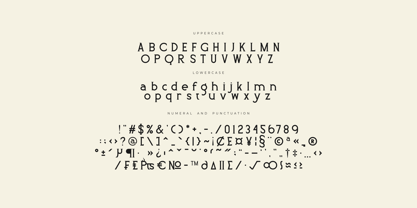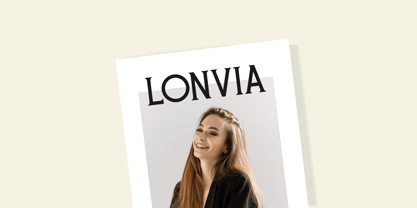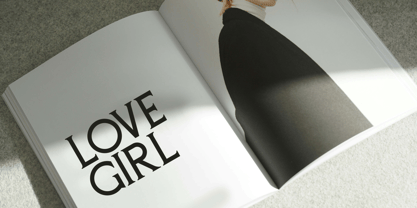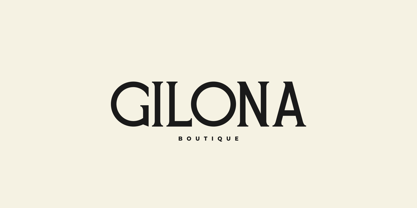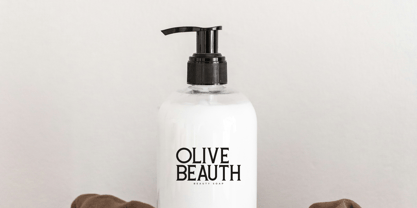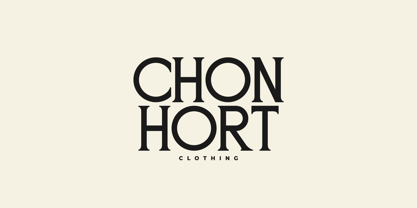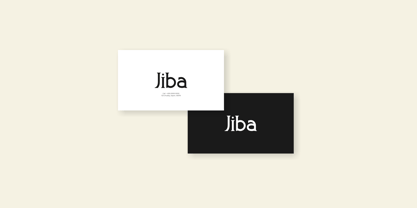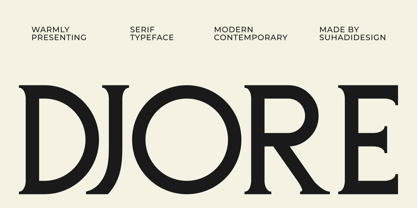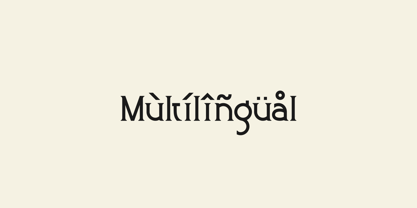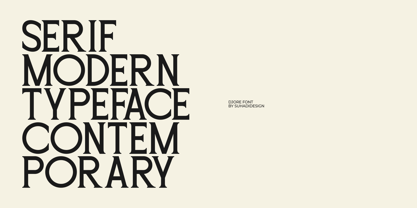
Djore
by suhadidesign
The Djore Font Family was designed by ahmad suhadi and published by suhadidesign. Djore contains 1 styles.
Djore - Serif Typeface Minimal Font Hello, ladies and gentlemen! The latest modern minimalist serif font has arrived, a highly sought-after font by both women and men. This is the Djore font. Djore is a modern serif typeface. With its elegant, contemporary design and cutting-edge style, this font has become a favorite on the market. We maintain the elegant, classy, ​​and stylish look of this font. Djore is a perfect choice for magazines, designs, books, publications, branding, brand names, business cards, social media, classy designs, newspapers, branding, beauty, and other projects. Djore is here to elevate the quality of your designs. Stay tuned for the latest information on font creation :) Features: • Capital Letters • Lowercase Letters • Multilingual Support • Numbers • Punctuation Thank you